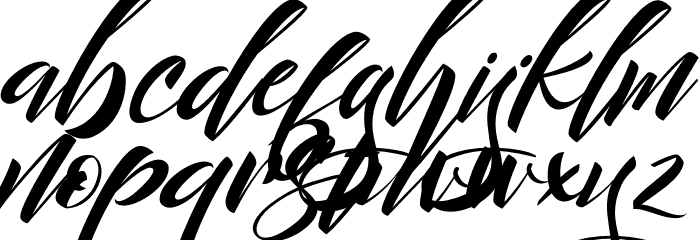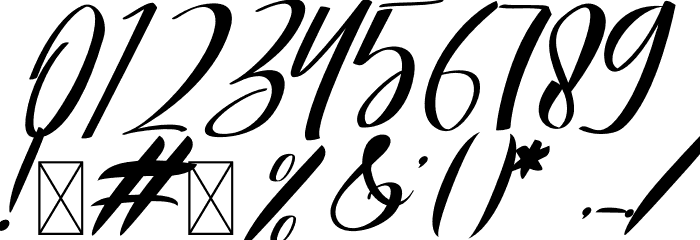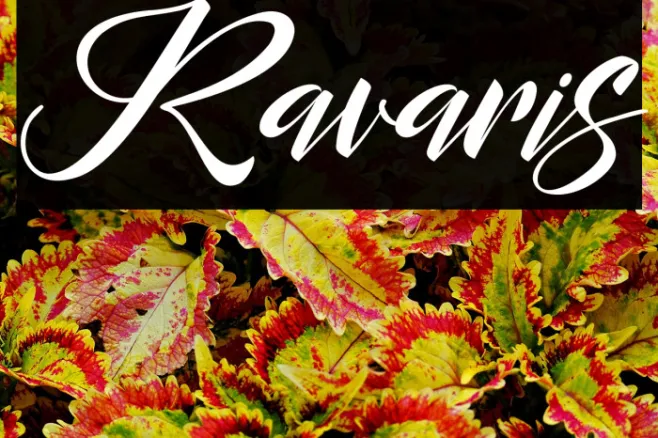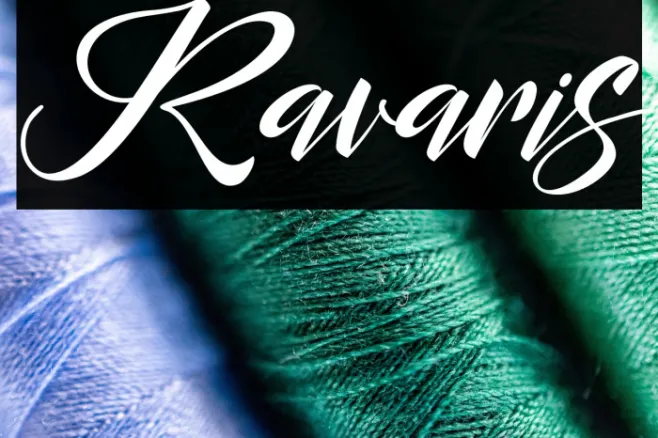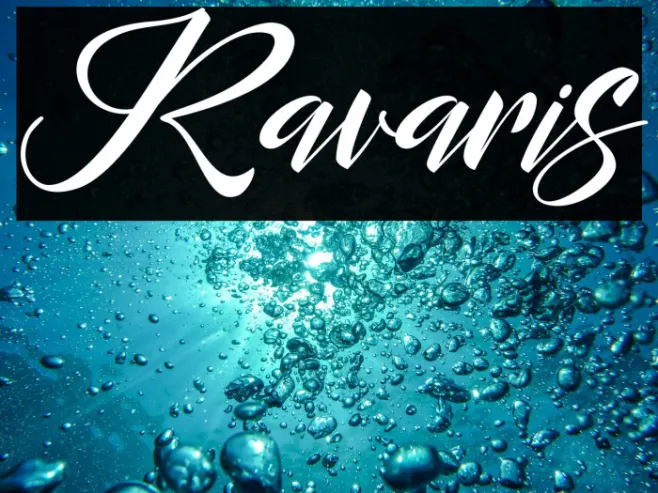
Ravaris Font
This font features an elegant and flowing script style, characterized by its smooth, cursive strokes and graceful curves. The uppercase letters are particularly ornate, with sweeping lines and loops that give a sense of movement and sophistication. The lowercase letters maintain a consistent flow, enhancing readability while preserving the decorative nature of the script. Numbers and special characters are designed with the same attention to detail, ensuring a cohesive look across all elements. This font is ideal for projects that require a touch of elegance and style, such as wedding invitations, formal event programs, or high-end branding materials.
An elegant, flowing script font with ornate, cursive strokes.
- Proposed Projects: Wedding invitations, formal event programs, high-end branding materials.
- Overall Style: Elegant
- Use Case: Headlines, Invitations, Branding